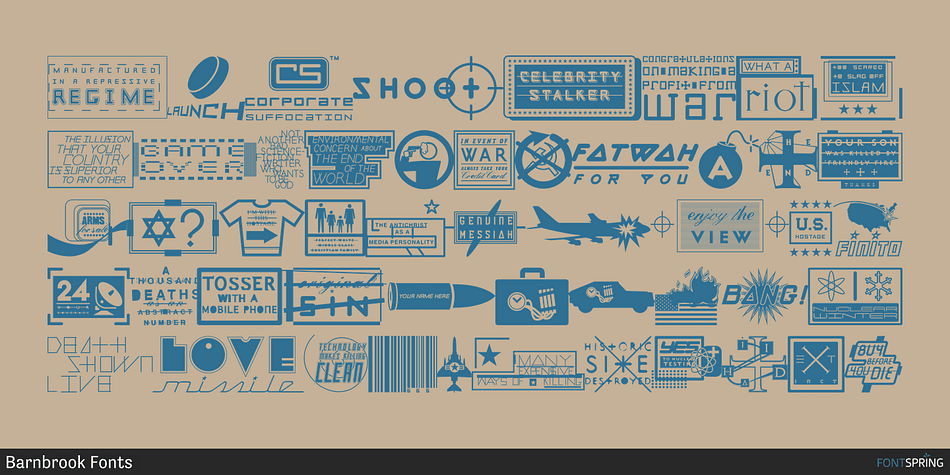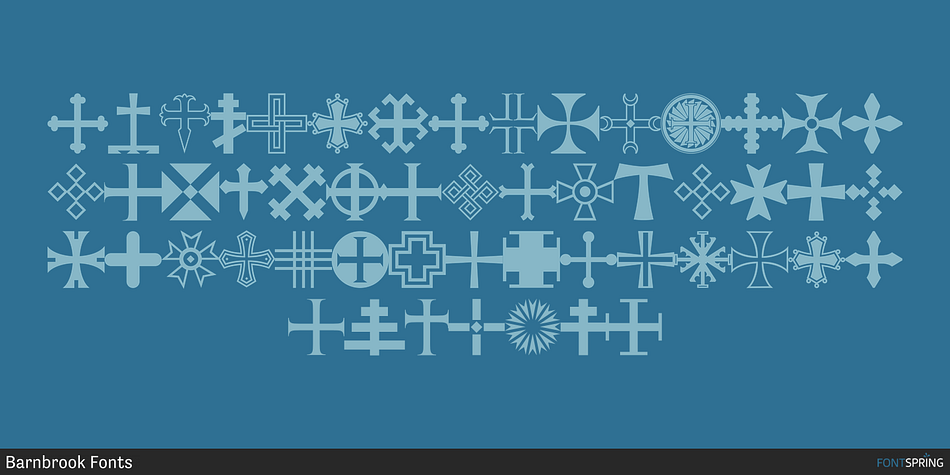
Designed by Jonathan Barnbrook, Apocalypso is a dingbat font family. This typeface has two styles and was published by Barnbrook Fonts.
Apocalypso‘s portmanteau name is analogous to ‘fiddling while Rome burns’.
The pictograms and crosses are considered an art project more than a practical font, yet the crosses add decorative detailing to typographic layouts, while the pictograms can be used to presage calamitous events.
Published in 1997, a few years before the turn of the millennium, Apocalypso is both a document of the ideas of the time and a scarily prophetic vision of our dystopian present-day.